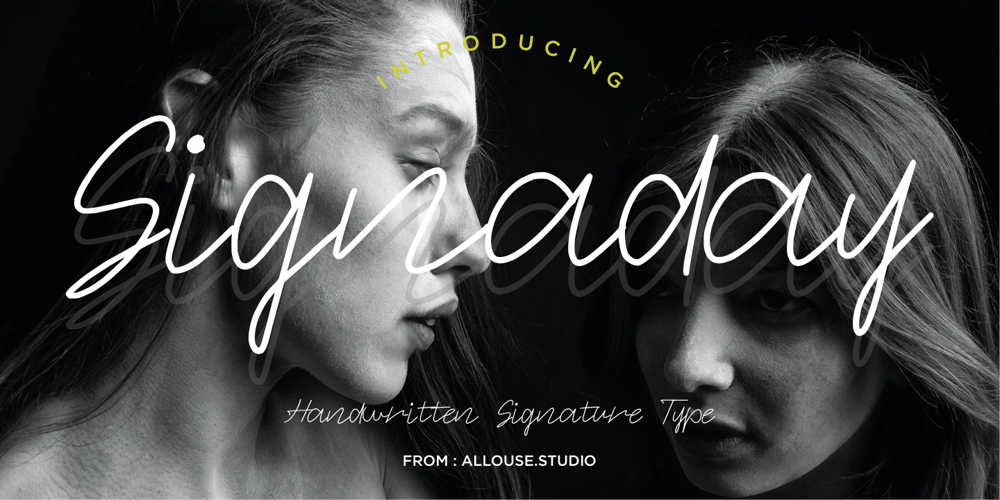
Signaday Font Family was designed by Fachrizal Yusuf and published by Allouse Studio. Signaday contains 1 styles and family package options. Proudly Present, Signaday a Modern Monoline Handwritten Font.Signaday is perfect for product packaging, branding project, megazine, social media, wedding, or just used to express words above the background.Enjoy the font, feel free to comment or feedback, send me PM or email. Thank You!